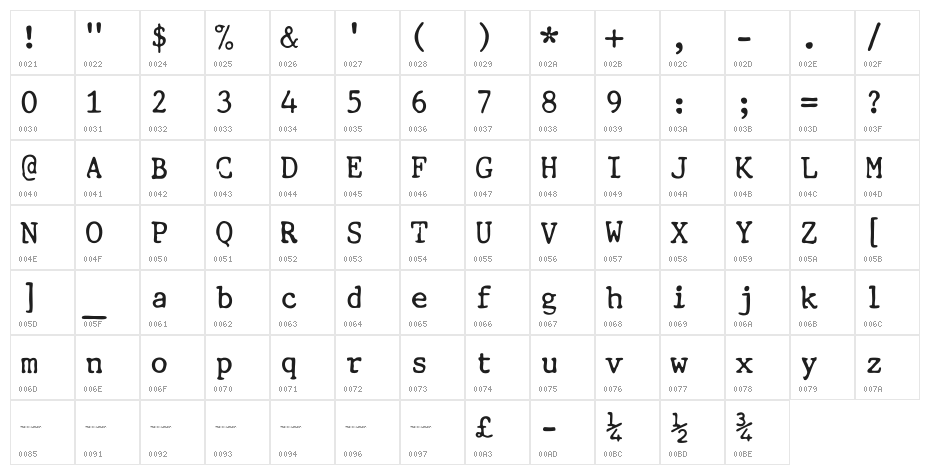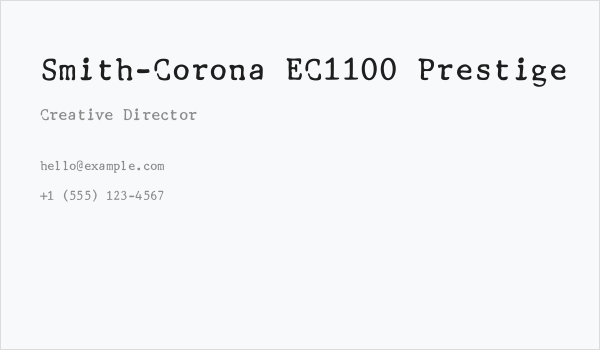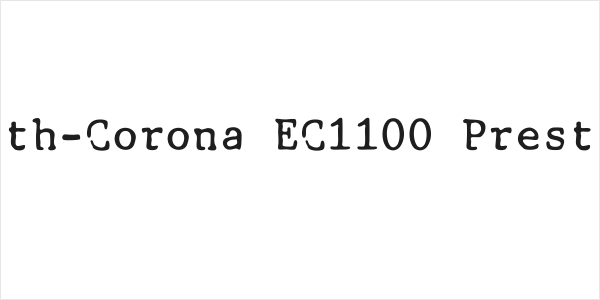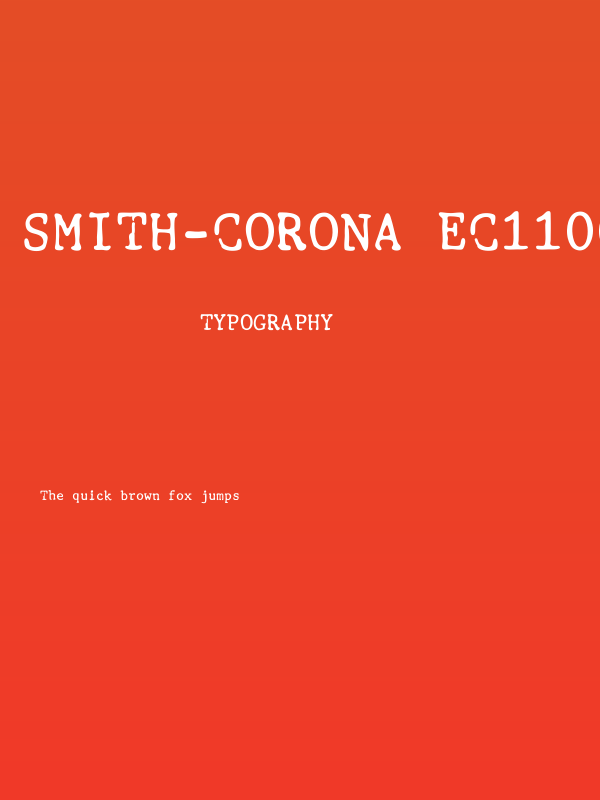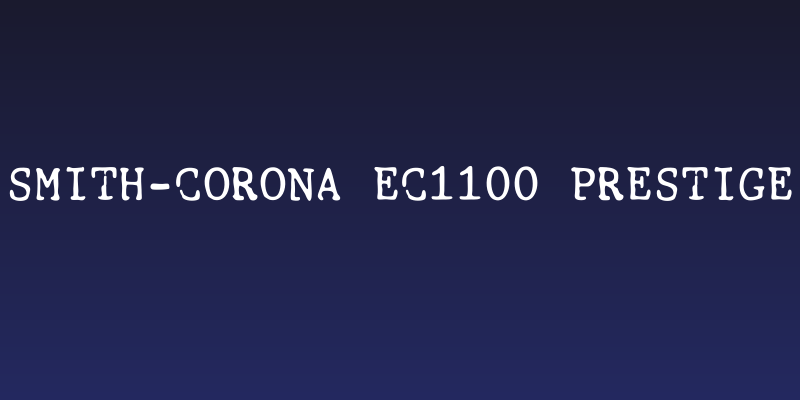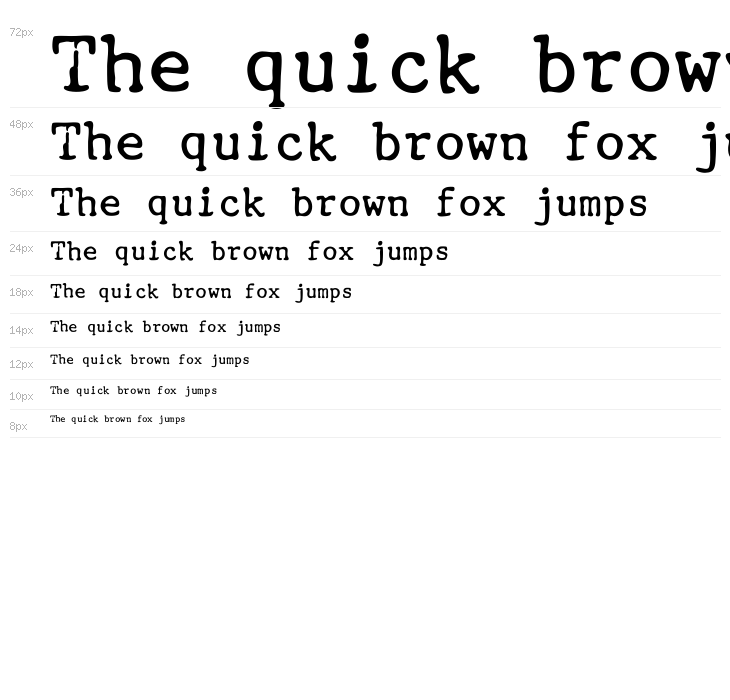
Smith-Corona EC1100 Prestige Font
Smith-Corona EC1100 Prestige Description
This font features a distinct typewriter style, characterized by its monospaced design where each character occupies the same amount of horizontal space. The letters have a rounded, slightly irregular appearance, giving them a vintage and mechanical feel reminiscent of classic typewriters. The uppercase letters are bold and prominent, while the lowercase letters maintain a consistent height and width, contributing to the uniformity typical of typewriter fonts. The numerals and special characters follow the same monospaced pattern, ensuring a cohesive look across all text. This font's unique style is ideal for projects that aim to evoke a sense of nostalgia or require a retro aesthetic.
| Proposed Projects | Ideal for retro-themed designs, typewriter simulations, creative writing projects, and vintage branding. |